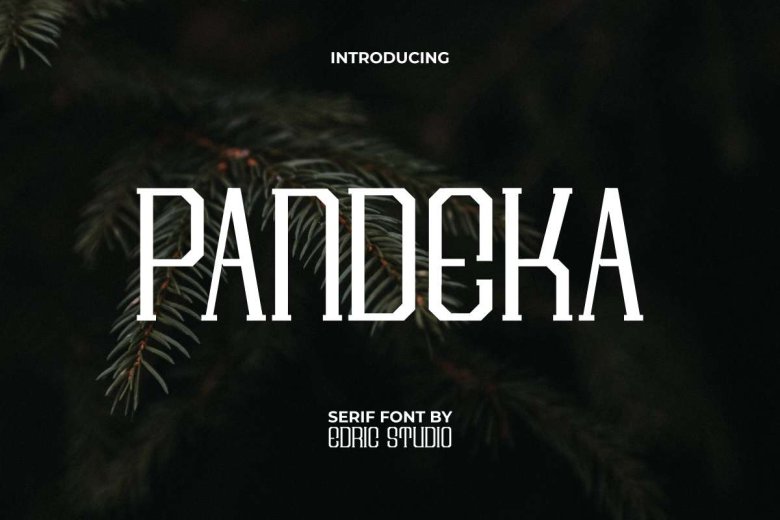
Pandeka Font
Pandeka Font is an antique serif display font with its own distinct style. This font represents an old style font with athletic square shapes that appeals to its readership, making it popular across a variety of industries such as accessories, architecture, cafe fitness center, fashion designer furniture, herbal products interior design, movie photography printing sportswear publishing etc.
Pandeka font offers a complete collection of lowercase and uppercase basic characters, numbers, punctuation marks, symbols and punctuation marks for use with punctuation systems such as punctuation mark fonts. It boasts beautiful characters which have been expertly managed by spacing and kerning to achieve maximum visual impact.
Pandeka Serif Font